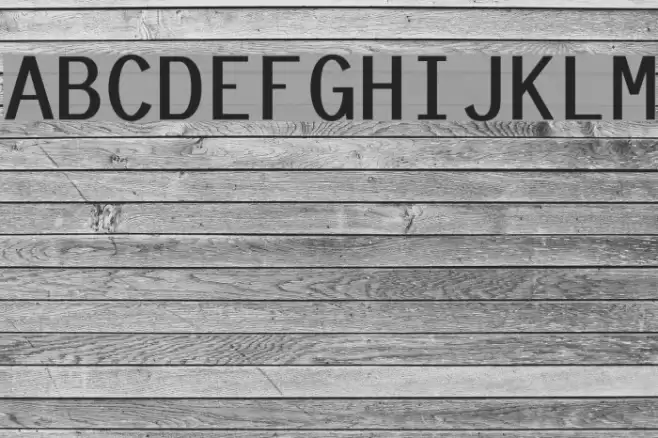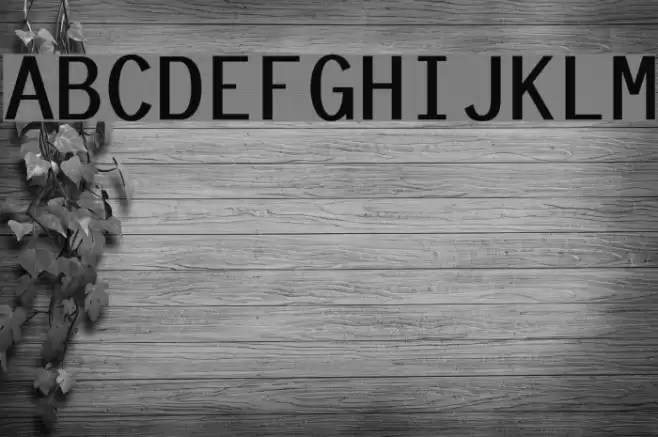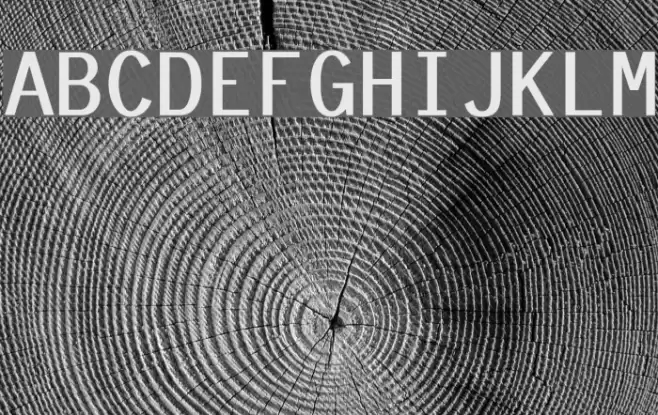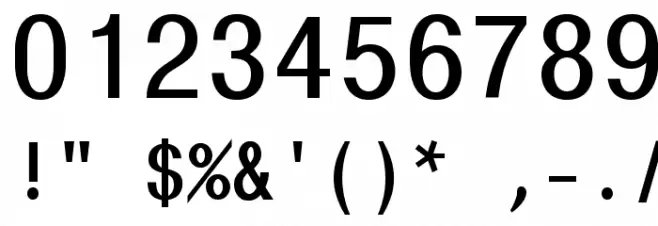
Tt-Kp-Medium Font
Tt-Kp-Medium Description
This font features a clean and modern sans-serif style with a medium weight, providing a balanced and professional appearance. The characters are uniformly designed with consistent stroke widths, offering a harmonious and readable text. The uppercase and lowercase letters maintain a uniform height, contributing to its neat and organized look. The numerals are clear and distinct, ensuring legibility in various contexts. Special characters are well-integrated, maintaining the overall aesthetic of the font. Its simplicity and clarity make it versatile for numerous design applications.
A clean, modern sans-serif font with medium weight and consistent stroke widths from Uncategorized fonts.